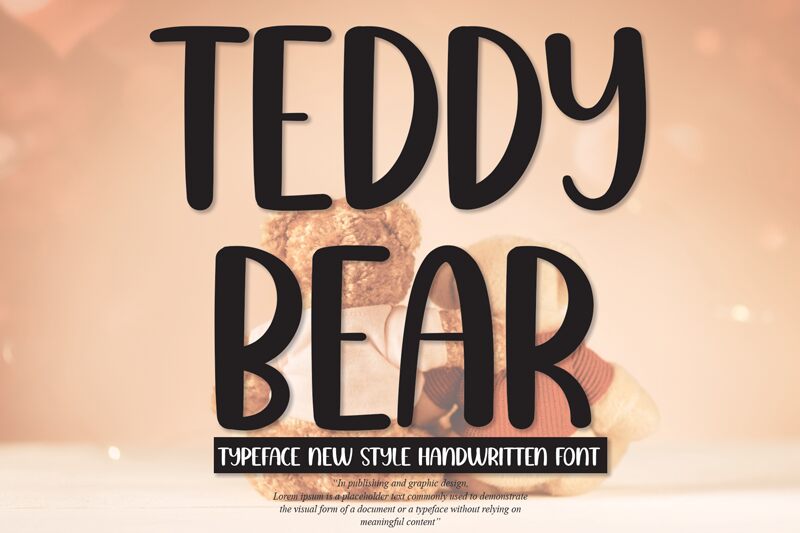
Teddy Bear
Teddy Bear, designed by Scratchones, exudes a playful and personable character through its handwritten style. The font's condensed width enhances its quirky charm, reminiscent of snugly penned notes from a cherished friend or the whimsical scrawls in a child's diary. Each stroke seems to carry the warmth and innocence of nostalgic childhood memories, making it especially suitable for projects that aim to evoke comfort and delight.
Ideal for invitations, greeting cards, children's books or branding that demands an intimate touch, Teddy Bear brings forth an inviting atmosphere where each word is wrapped in metaphorical softness. Its distinctive aesthetic ensures that any message conveyed is not only read but felt with a tender sincerity.